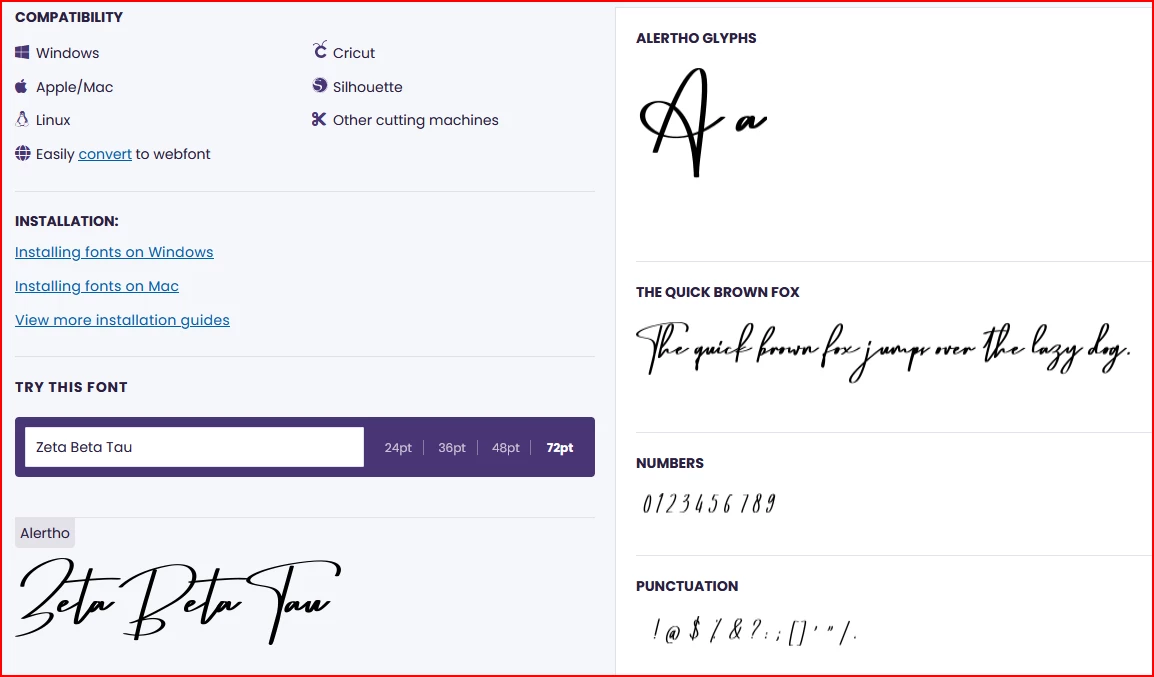
Is there a way to overlay the Zeta Beta Tau with Phi Delta Theta so the font/style stays the same?
Hello all, I need help overlaying the red-ish text in this photo to change it from saying Zeta Beta Tau to Phi Delta Theta, and so the new text stays in the same style/font. I tried font-match and searching for the exact font online, but couldn't find any that were close enough for my liking. I will attach the photo I am talking about in the post. Any help would be greatly appreciated!
If it is actually text as you say it is, then double-click the Type layer and edit the text.
If it is pixels and not text, and all on one layer, then there is no typeface involved. There are only pixels. You would need to remove the red pixels, recreate where the black pixels used to be, then type and format the new text.
Are you looking for this font?
No website, no matter how good, is as good as an optimised preparation of the image. (in this case I used whatfontis . com with this image)
Looking again, they might have done the entire image in Illustrator. The red text looks like it has a brush applied as an Appearance for the black stroke.
You'll need to redraw the whole graphic unless you can get a copy of the original. Delete everything but the script letters and see about matching- Adobe Fonts doesn't look to have a match.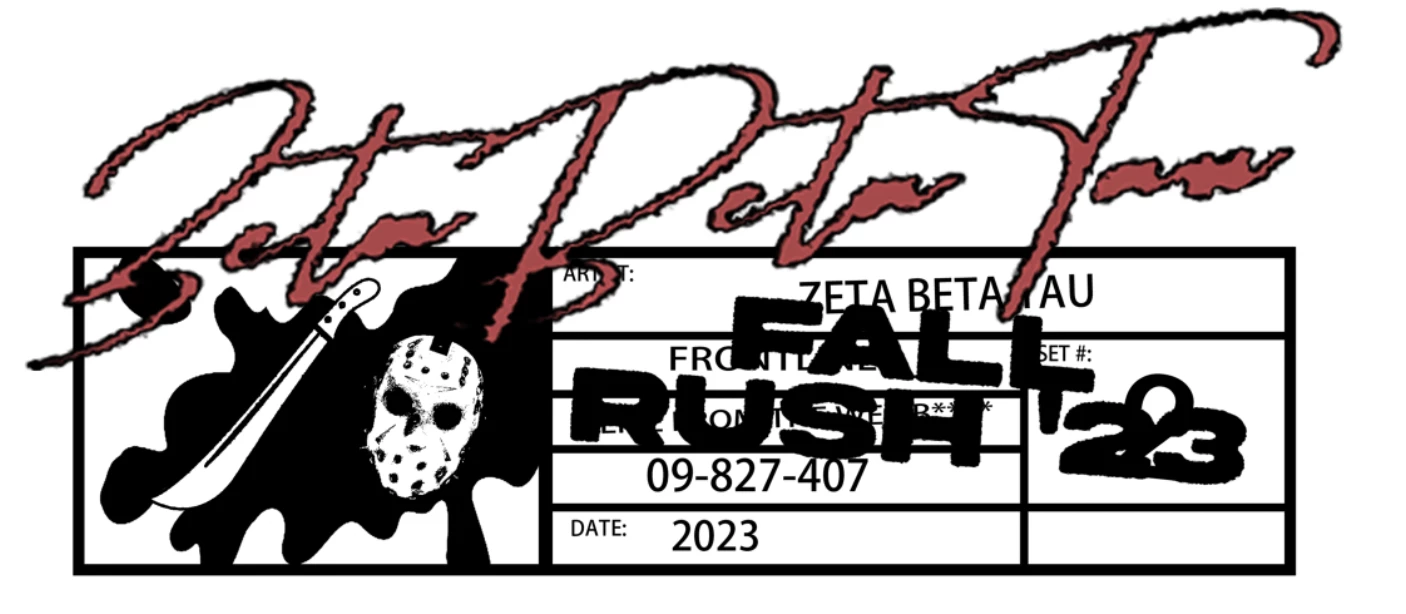